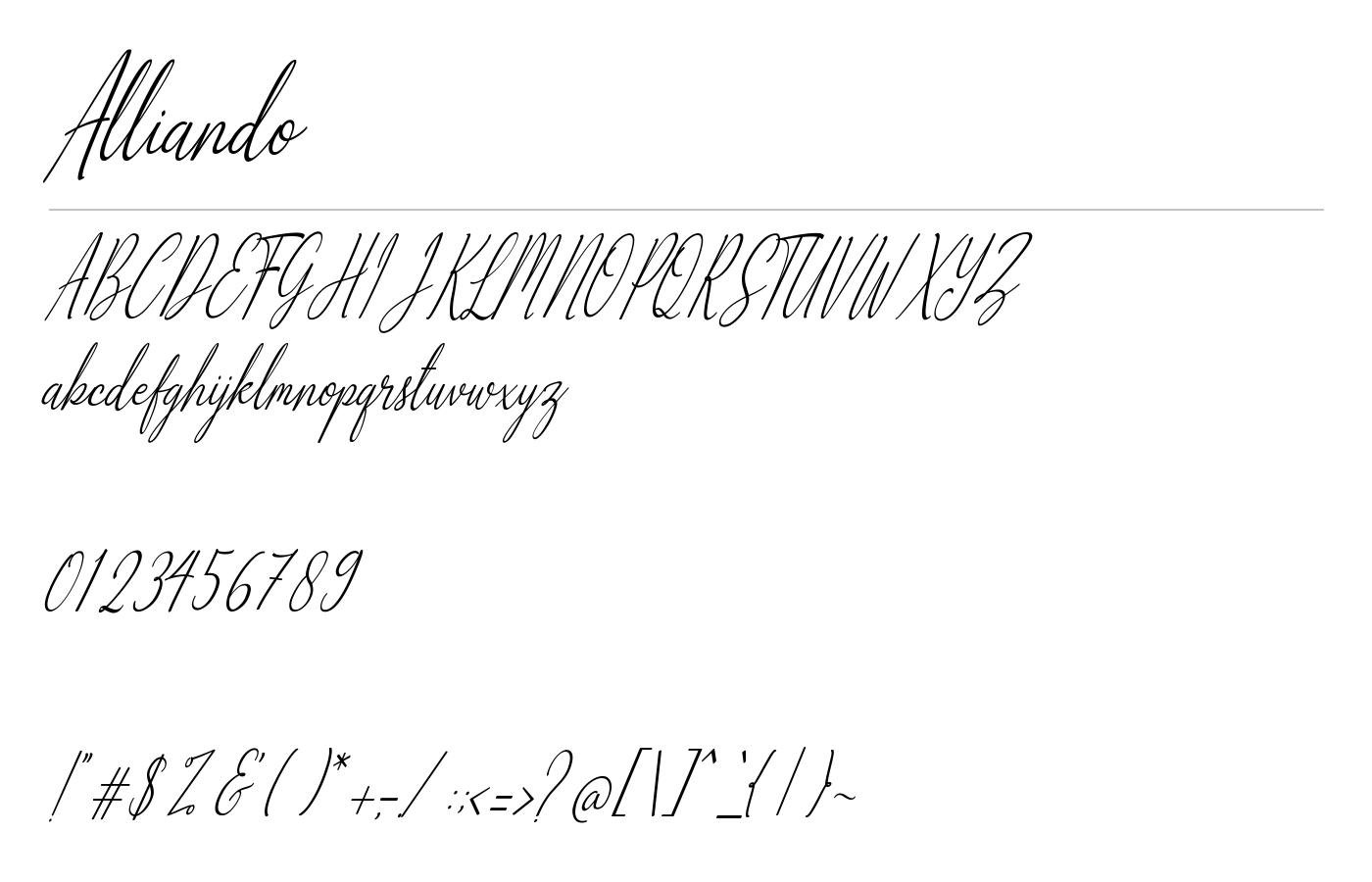
Alliando is an elegant, slender script font with a delicate, handwritten style that conveys sophistication and grace. Its tall, flowing letterforms and fine strokes make it perfect for invitations, logos, and branding that require a personal, refined touch. This font works best in designs aiming for a stylish, luxurious, or romantic feel.
Alliando Font
About Alliando Font